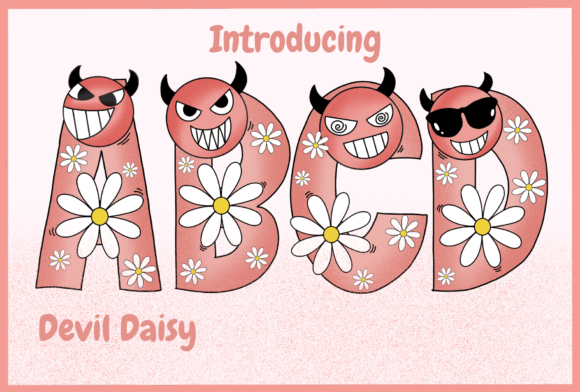
Unleash Whimsy with Devil Daisy Font: The Ultimate Guide
Are you tired of using the same old fonts for your creative projects? Look no further than Devil Daisy Font, a delightful all-caps typeface that combines mischievous devil faces with whimsical flowers. This quirky font is sure to add a playful and light-hearted touch to any design, making it perfect for crafters, designers, and anyone looking to infuse their text with a blend of humor and floral flair.
The Unique Charm of Devil Daisy Font
Devil Daisy Font is a one-of-a-kind decorative typeface that stands out from the crowd. Its unique design combines the playful, mischievous elements of devil faces with the delicate, whimsical charm of flowers. The result is a font that is both eye-catching and endearing, making it perfect for a wide range of creative projects.
Whether you’re crafting greeting cards, party banners, or quirky posters, Devil Daisy Font is the perfect choice. Its all-caps design ensures that your text is always bold and attention-grabbing, while its playful devil and flower motifs add a touch of whimsy and humor.
Devil Daisy Font is a versatile typeface that can be used in a wide range of creative projects. Designers will love using it to add a touch of personality to their designs, while crafters will appreciate its playful, DIY vibe.
Some popular uses for Devil Daisy Font include:
• Greeting cards: Add a touch of whimsy to your greeting cards with Devil Daisy Font’s playful devil and flower motifs.
• Party banners: Create eye-catching party banners with Devil Daisy Font’s bold, all-caps design.
• Quirky posters: Add a touch of humor and personality to your posters with Devil Daisy Font’s unique design.
• Social media graphics: Use Devil Daisy Font to add a playful touch to your social media graphics and stand out from the crowd.
Why Choose Devil Daisy Font?
So why choose Devil Daisy Font for your next creative project? Here are just a few reasons:
• Unique design: Devil Daisy Font’s unique combination of devil faces and flowers makes it a one-of-a-kind typeface that will set your designs apart.
• Playful vibe: Devil Daisy Font’s playful, whimsical design makes it perfect for adding a light-hearted touch to your designs.
• Versatility: Devil Daisy Font can be used in a wide range of creative projects, from greeting cards to social media graphics.
Tips for Using Devil Daisy Font
Here are a few tips for getting the most out of Devil Daisy Font:
• Use it sparingly: Devil Daisy Font’s bold, playful design can be overwhelming if overused. Use it sparingly to add a touch of whimsy to your designs.
• Pair it with complementary fonts: Pair Devil Daisy Font with complementary fonts to create a visually appealing design.
• Experiment with colors: Devil Daisy Font looks great in a wide range of colors. Experiment with different colors to find the perfect look for your design.
Devil Daisy Font is a unique and playful typeface that is perfect for designers and crafters looking to add a touch of whimsy to their creative projects. Its bold, all-caps design and mischievous devil and flower motifs make it a one-of-a-kind decorative charm that is sure to stand out. Whether you’re crafting greeting cards, party banners, or quirky posters, Devil Daisy Font is the perfect choice for infusing your text with a blend of humor and floral flair.